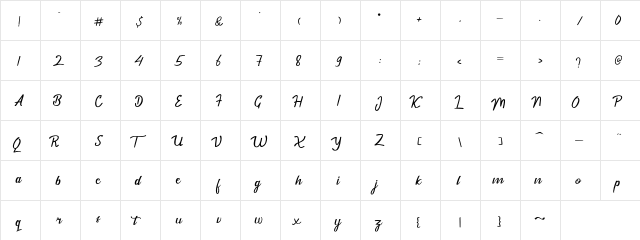
Dekade Regular
Design Context for Dekade Typeface
Dekade is a composed and adaptable typeface that performs quietly and consistently across a wide range of design contexts.